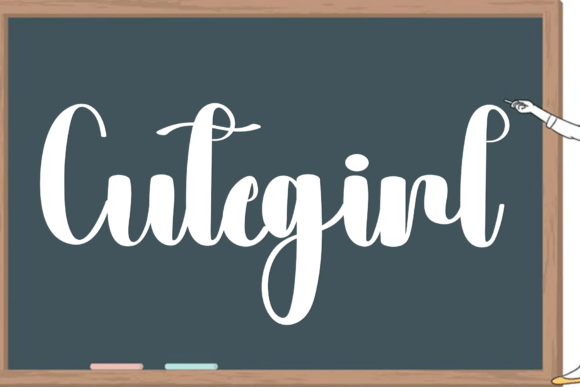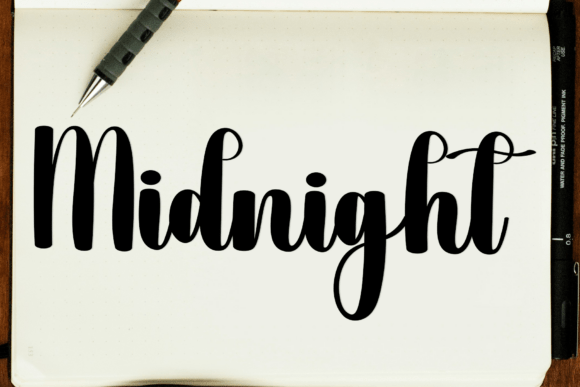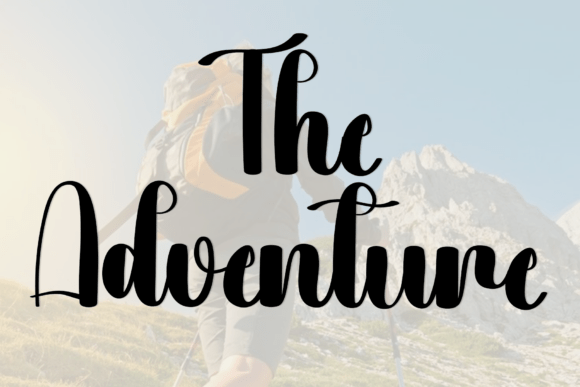
Happy Designs Ahead: Unwrapping the Birthday December Font
As a designer, have you ever stared at a blank canvas, eager to bring a special moment to life? Perhaps it’s a birthday celebration, a holiday gathering, or a heartfelt announcement. Whatever the occasion, the right font can make all the difference. That’s where the Birthday December Font comes in – a charming, hand-drawn typeface designed to spread warmth and friendliness.
- Unique Characteristics: The Birthday December font features a unique, cursive script with a festive and celebratory feel, making it perfect for December birthdays, holiday cards, and other winter-themed designs.
Birthday December Font Review
Overall, I think the Birthday December Font is a delightful addition to any design project. ✨ The font’s unique blend of elegance and playfulness makes it perfect for birthday-themed designs, weddings, or even holiday cards. The intricate details and flourishes add a touch of sophistication, while the bold lines keep the design feeling modern and fresh.
Here are some of the font’s strengths:
- ✨ Beautifully crafted details and flourishes that add depth and visual interest
- ✨ Excellent for projects that require a mix of elegance and playfulness
- ✨ Highly versatile, suitable for a wide range of design applications
However, I do have some reservations about the font:
- ⚠️ Limited character set, which may not be ideal for longer blocks of text
- ⚠️ Some characters may be difficult to read at smaller font sizes
- ⚠️ May not be suitable for designs that require a more minimalist or simple aesthetic
Overall, I think the Birthday December Font is a great choice for designers looking to add some personality and whimsy to their projects. While it may have some limitations, the font’s unique style and versatility make it a valuable addition to any design toolbox.
The Birthday December font is ideal for creating birthday invitations, cards, and other celebratory graphics. It’s also suitable for use in social media posts, blog articles, or website content related to birthdays or special occasions.
For the best results, use the Birthday December font in conjunction with bold colors and creative graphics. Experiment with different font sizes, styles, and combinations to create unique and eye-catching designs.